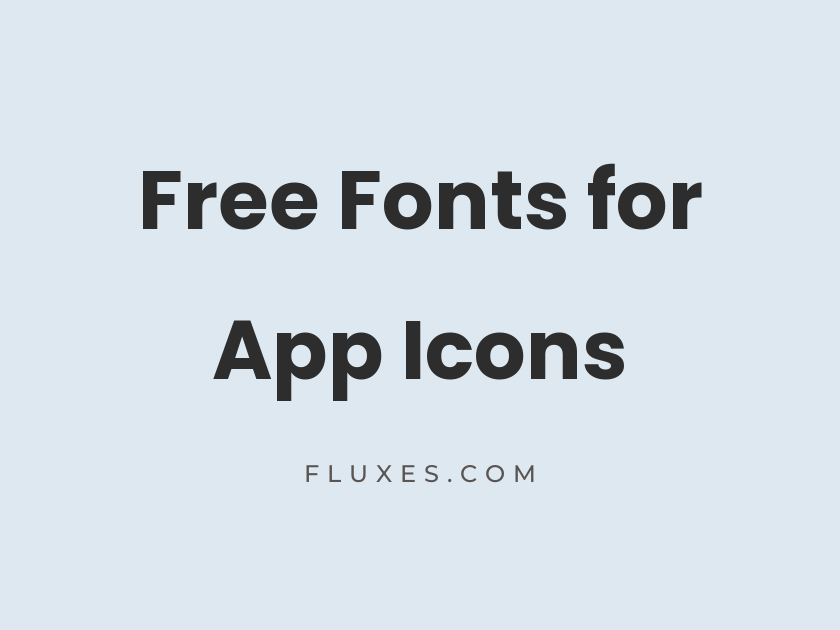
72 Best Free Fonts for App Icons
App icon typography is a different discipline from body text design. A wordmark or badge letter often has to read clearly at 512 pixels and still hold its shape when scaled down to a 40-pixel home screen tile, so weight, openness, and personality matter more than fine detail. Choosing free fonts for app icons from Google Fonts gives you access to display faces, geometric sans, rounded families, and monospace options that cover everything from fintech dashboards to arcade games, all without licensing headaches.
What follows is a wide-ranging set of options organized loosely by mood and use case, from clean geometric sans that suit productivity tools to bold display faces built for badges and splash screens.
Clean geometric shapes for a modern app
Poppins is the default choice for a reason: its circular letterforms and even stroke weight give it a friendly, confident presence that survives shrinking down to a launcher icon without losing its shape. It reads as contemporary without feeling trendy, which is why it shows up across so many fintech, wellness, and productivity app logos.
Pair a bold weight for the icon badge with a lighter weight in the onboarding screens for a cohesive brand system.
Bold letters that scale down to icon size
Inspired by early twentieth-century Buenos Aires signage, Montserrat carries a geometric structure with just enough humanist warmth to avoid feeling cold. At heavy weights it becomes a dependable workhorse for app wordmarks, since the letterforms stay distinct even when an icon is reduced to thumbnail size on a store listing.
Soft rounded curves for a friendly app
The rounded terminals on Quicksand soften every letter, making it a natural fit for meditation, parenting, or health apps that want to feel gentle rather than corporate.
Approachable rounded letterforms for wellness apps
Comfortaa leans further into roundness than most geometric sans, with almost no sharp corners anywhere in its letterforms. That makes it approachable and calm, though its softness can blur slightly at very small sizes, so reserve it for larger badge treatments rather than tiny favicon-scale marks.
Warm rounded sans for social app branding
Nunito balances rounded terminals with fairly tight spacing, giving it a compact, friendly voice that works well for social and community app icons.
Slightly rounded corners, confident app wordmark
Rubik’s subtly rounded corners give an otherwise sturdy grotesque some personality without tipping into cute. It has become a favorite for app dashboards and settings screens, and the same weight that works in the interface will carry over cleanly into an icon lockup.
Elegant geometric letters for lifestyle apps
Thin, elegant proportions give Josefin Sans a boutique feel more common in fashion or design-tool branding than in mass-market utility apps. It is best used at larger icon sizes, since its narrow strokes can thin out awkwardly once compressed.
Questrial
Wide open letterforms for a minimal app
Questrial
Questrial’s wide, open counters give it a spacious, modern feel that suits minimalist app branding. It only comes in one weight, but that single weight is bold enough in its geometry to anchor a wordmark on its own.
Balanced letters built for small screens
Built specifically with UI and screen legibility in mind, DM Sans keeps its counters open and its rhythm even, which is exactly what you want in a letter that has to survive shrinking into a badge.
Crisp geometric sans for tech startups
Sora has a slightly technical, engineered feel that fits software and developer-facing brands well. Its geometric bones stay crisp at bold weights, making it a solid choice when an app icon needs to look precise rather than playful.
Modern grotesque for productivity app branding
Manrope splits the difference between a grotesque and a geometric sans, landing on something clean and slightly cool in temperament. It suits productivity, calendar, and note-taking apps that want to look organized and unfussy.
Neutral geometric sans for versatile app icons
Outfit is deliberately neutral, which makes it flexible across categories from shopping to utility apps. It will not add much personality on its own, so lean on color and shape in the icon artwork to do the branding work.
Friendly geometric letters for finance apps
Plus Jakarta Sans has a slightly rounded warmth that softens its geometric structure, which is part of why it has become popular in fintech and neobank branding that wants to feel trustworthy but not stiff.
Lexend
Legible letterforms designed for clarity onscreen
Lexend
Originally developed with reading research behind it, Lexend prioritizes clarity above style. That makes it a smart pick for accessibility-focused apps or any icon where legibility at a glance matters more than flair.
Distinctive quirks for a standout app icon
For the app’s interface, it often works well to pair a bolder display font used only in the icon and splash screen with a plainer, more neutral sans like Inter, Work Sans, or IBM Plex Sans for everyday UI text.
Whatever the app’s category, from a quiet journaling tool to a loud arcade game, there is a genuinely well-suited free typeface here to build the badge, the wordmark, and the brand around.